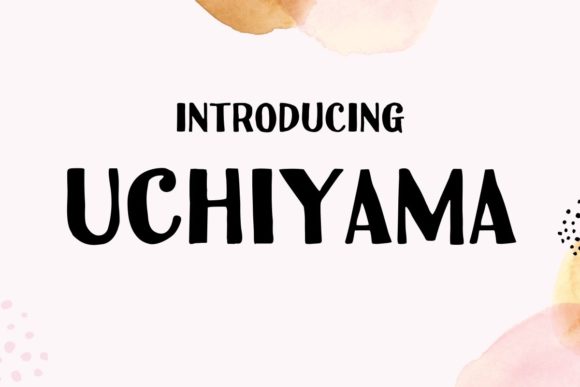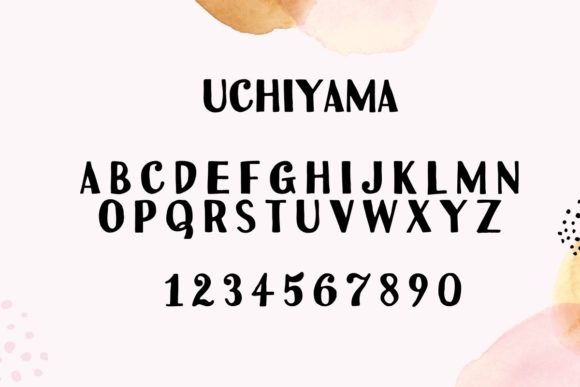
HomePersonal Use FreeUchiyama Personal Use Free Uchiyama FacebookTwitterPinterestWhatsApp 1 of 2 About Uchiyama Font Uchiyama is a hand-drawn sans serif font that is reminiscent of mid-20th century Japanese designs. DOWNLOAD NOW People also explored Akrovich Font Felmora Font Whitney Font Whisky Font Wakanda Font Mindlove Font Yolanda Font Shibuyah Font Fritlany Font 206 0 TagsUchiyama Font Previous articleBally GirlNext articleVexler Slip LEAVE A REPLY Cancel reply Comment: Please enter your comment! Name:* Please enter your name here Email:* You have entered an incorrect email address! Please enter your email address here Website: Save my name, email, and website in this browser for the next time I comment. Personal Use Free Still Time Personal Use Free Read more about this font Elsabetha Personal Use Free Read more about this font Rothwell Personal Use Free Read more about this font Batik Classic Personal Use Free Read more about this font BLOG Transform Your Website: Elevate Your Typography with 7 Best Web Font Generators Are you ready to transform your website's typography from ordinary to extraordinary? Great! Today, we're diving into the world of web font generators, which... The 10 Best Handwriting Fonts to Add Personality to Your Designs Using Fonts in Digital Marketing: Tips to Strengthen Your Brand Identity Elegant Wedding Invitation Fonts – Handwritten & Script Fonts